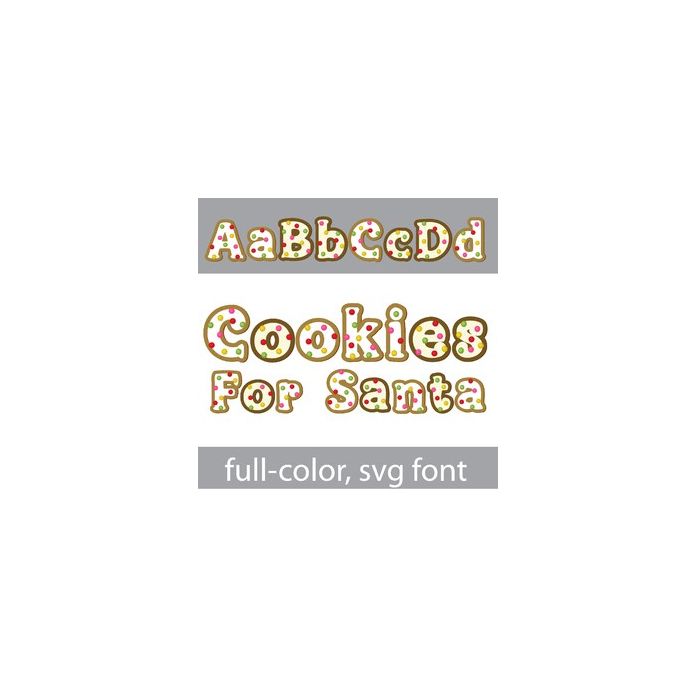
This full-color font features adorable, Cookies for Santa with round little sprinkles. There is an alt case w/ additional colors you can access through your system or Silhouette's glyph map.